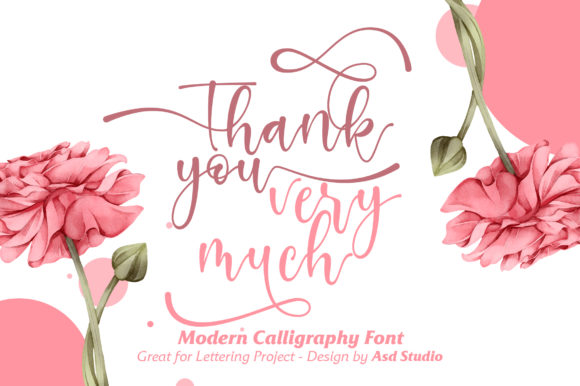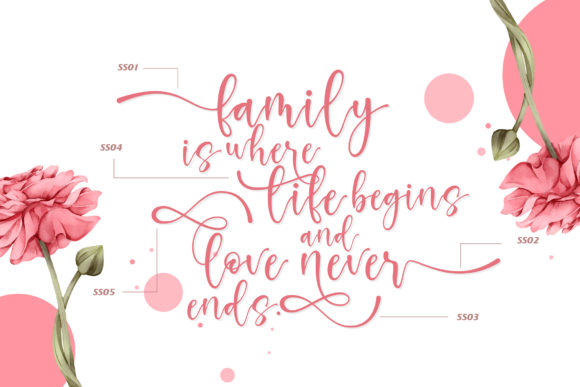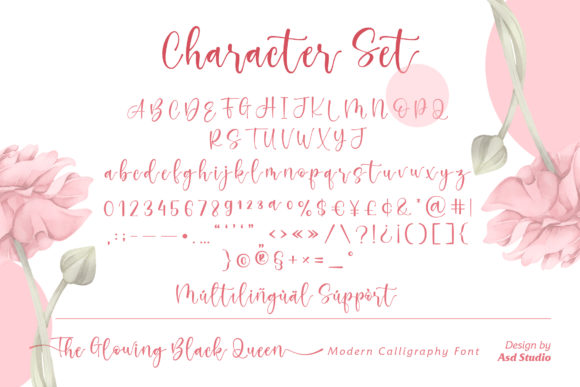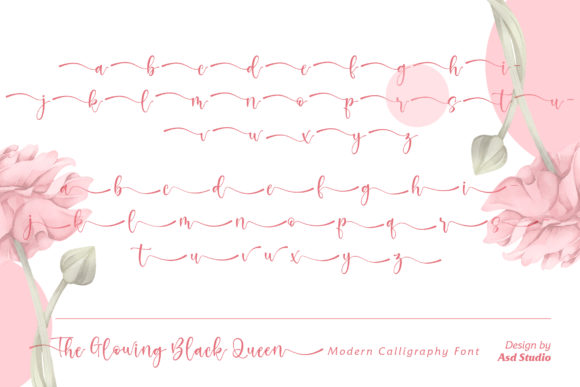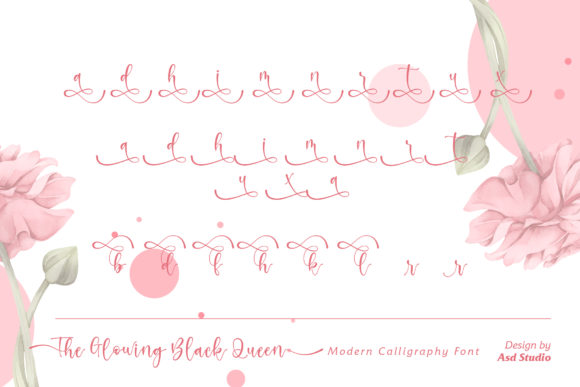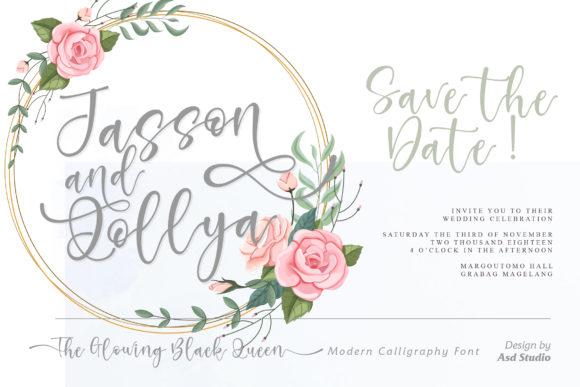
The Glowing Black Queen Font
About The Glowing Black Queen Font
The Glowing Black Queen simplifies elegance into one truly outstanding script font.
It maintains its classy calligraphic influences while feeling contemporary and fresh. This versatility will appeal to a wide range of crafty ideas, from letterheads and titles, to stationery.